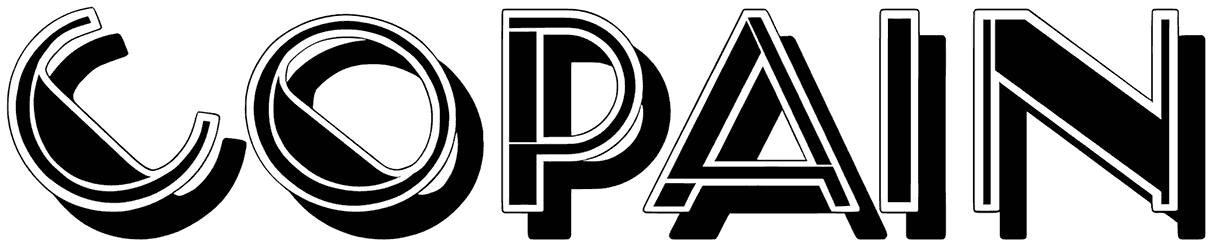
Copain Font
Giving variety to artwork is not such a mind-blowing task, for example, shadows were added to the background of characters of Copain and make this font look outstanding, thus it presents a combination of innovation and classic. So, it is better to overlook not supporting lowercase letters, punctuations, and numbers, and just utilize this shadow font in posters, packaging, wallpapers, and menus.